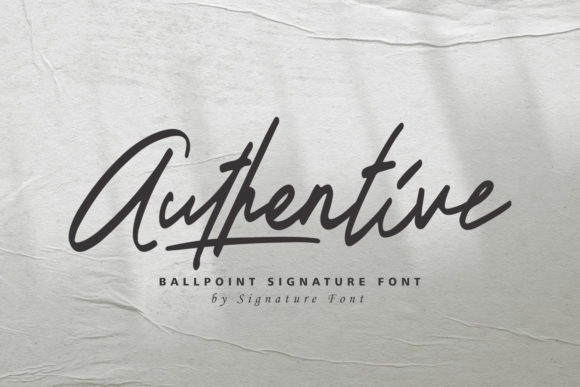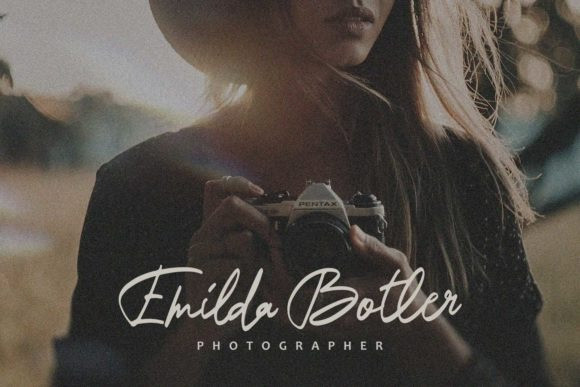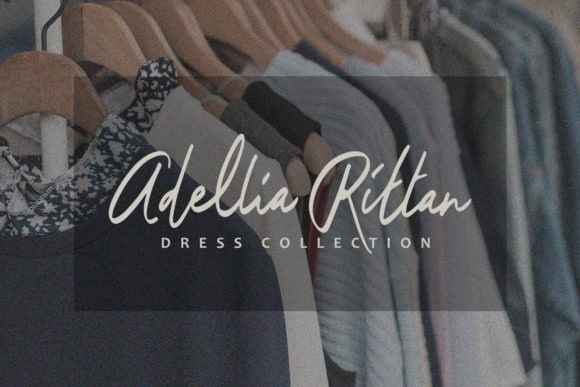
Authentive Font
Authentive is a beautiful and refined script font. It has a classy, elegant and modern look that can be used for various creations. Authentive is PUA encoded which means you can access all of the amazing glyphs and ligatures with ease!